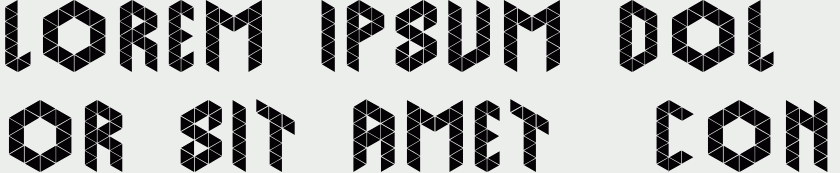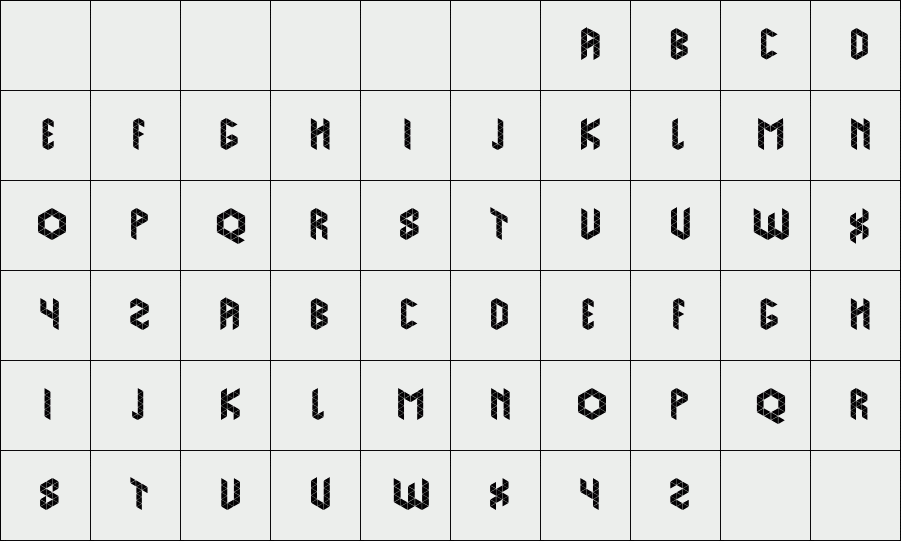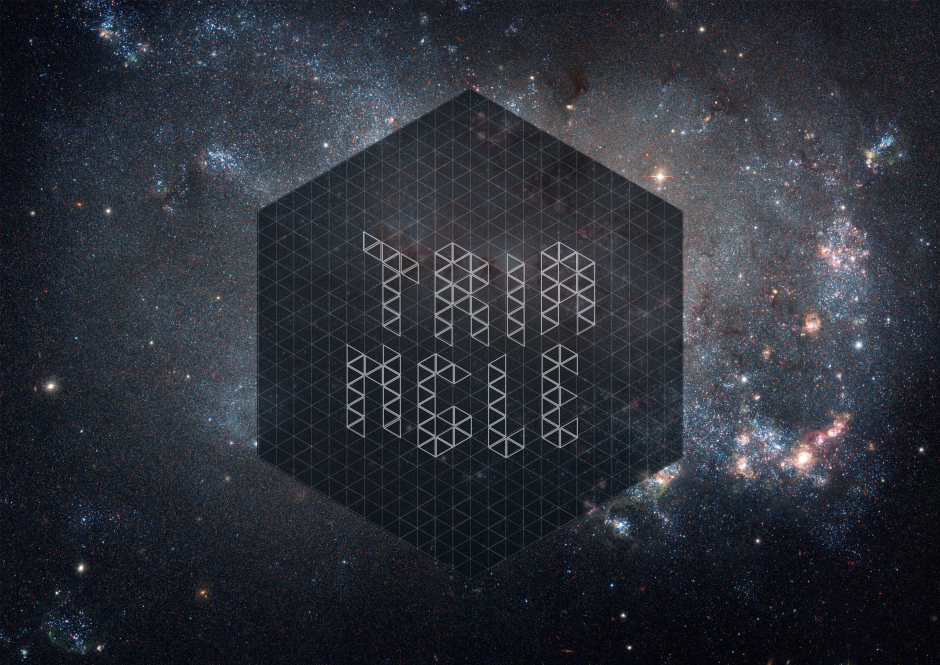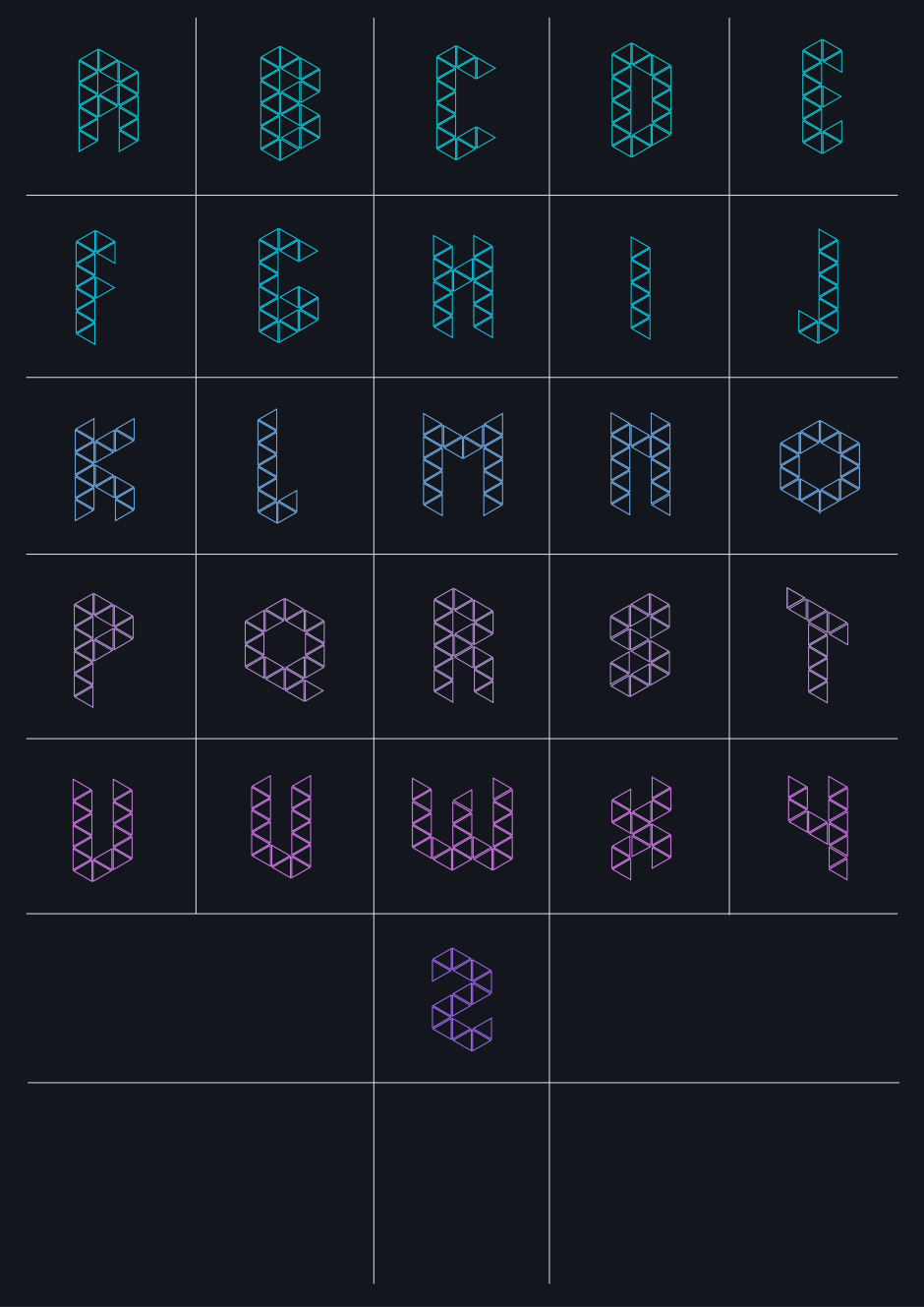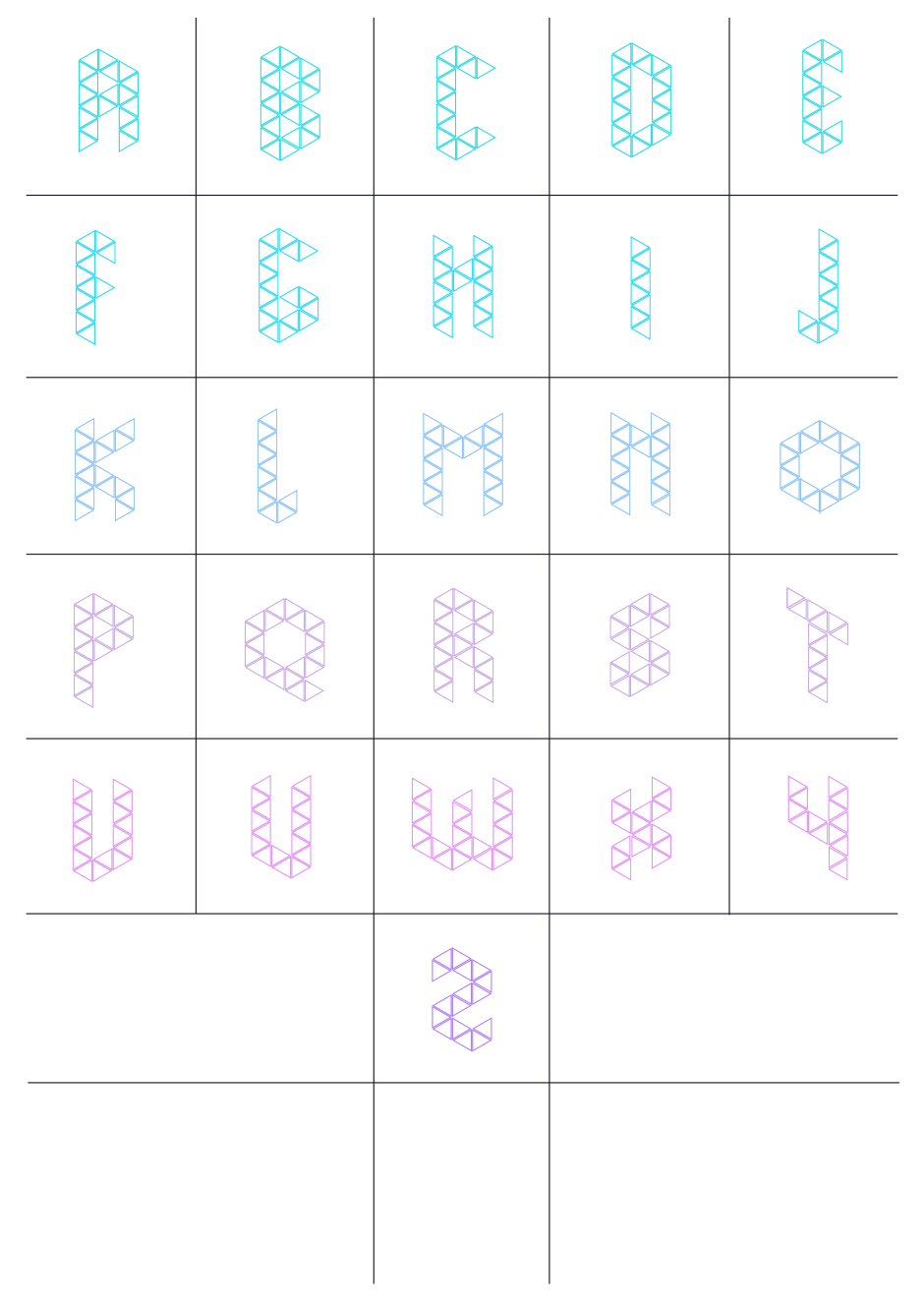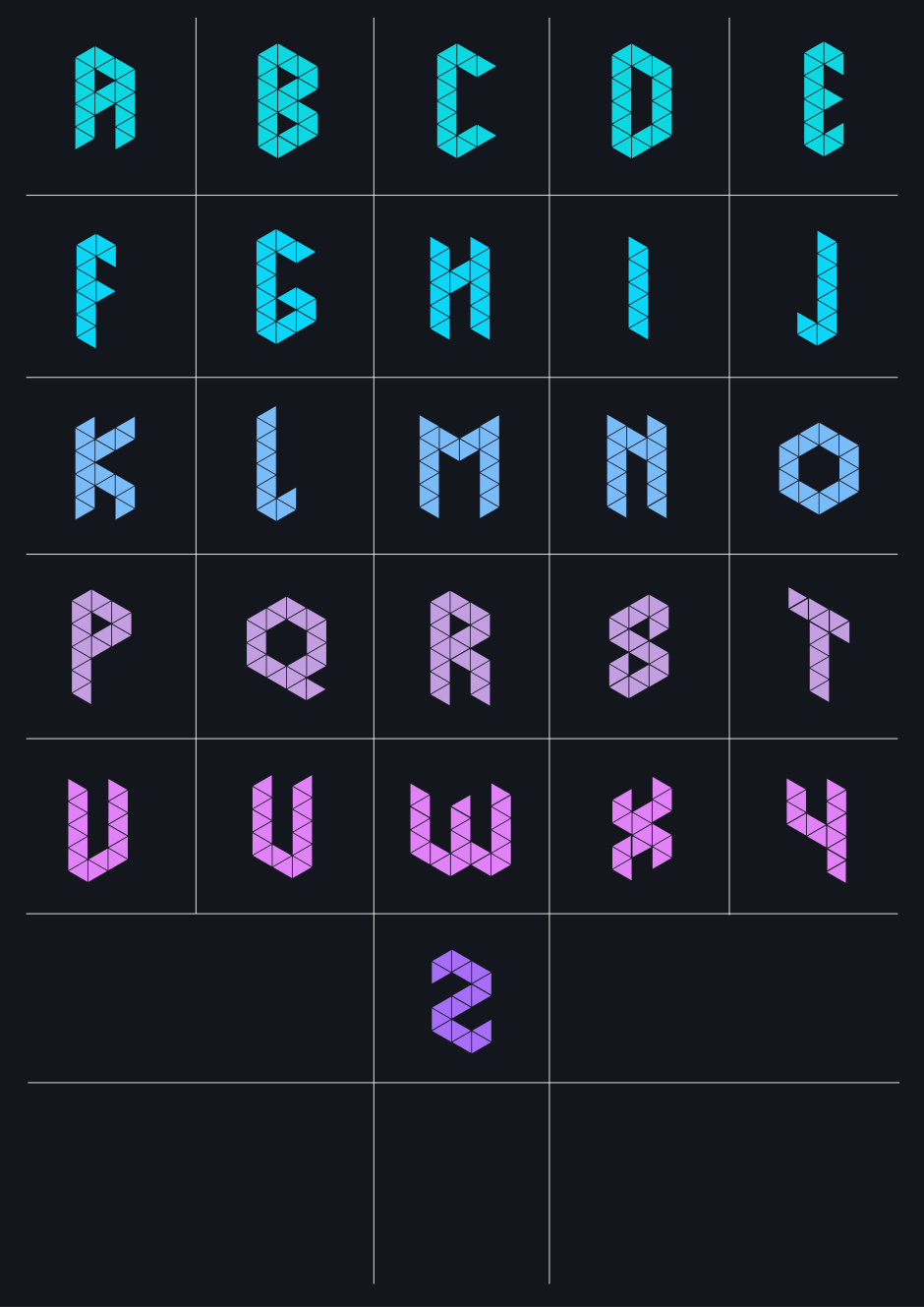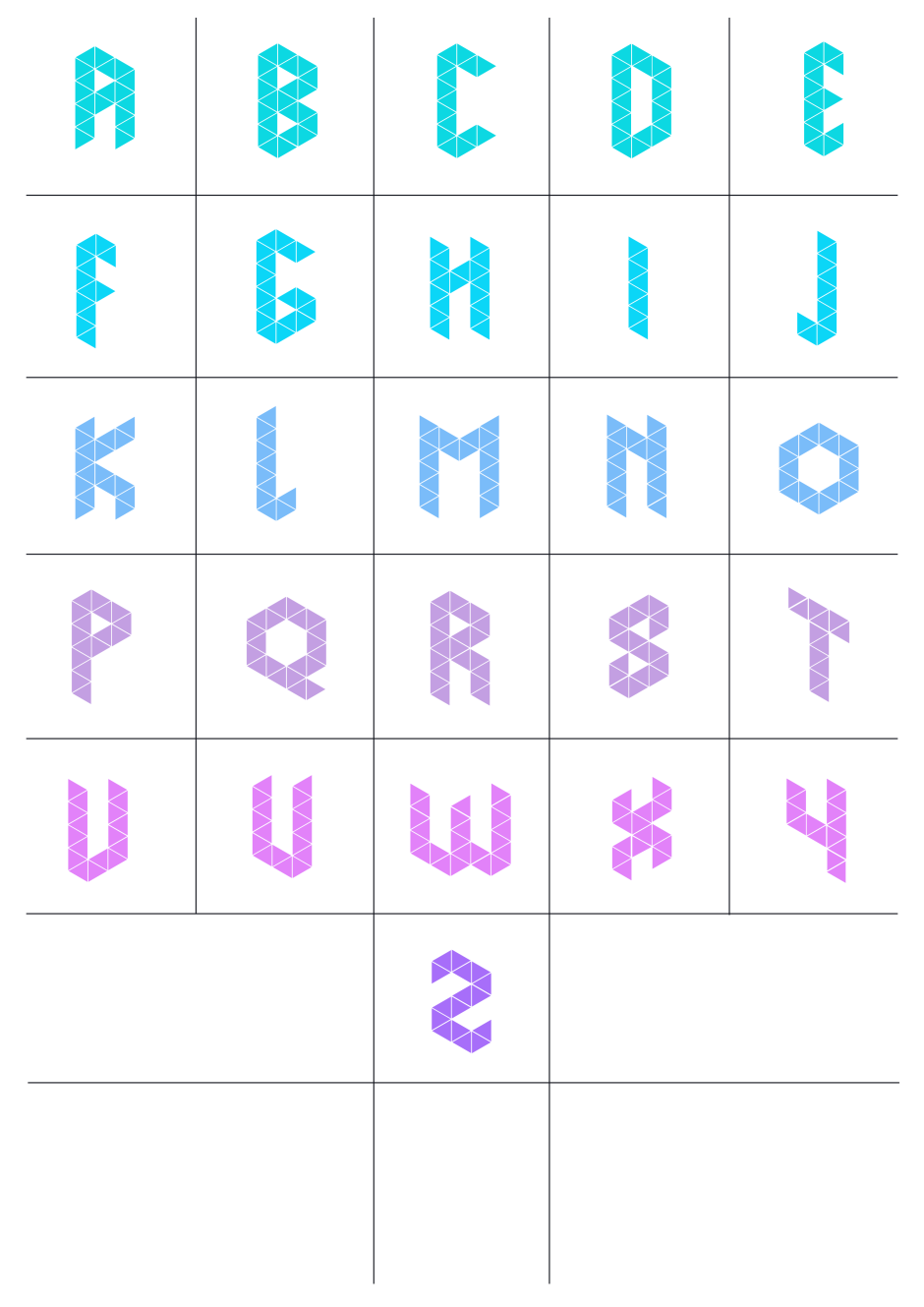
Triangle
/ Triangle-Filled
Triangle Is a geometric and display typeface based on the shape of triangle. His two versions makes it versatile and flexible for all designs.
Designer: Patricia Rueda